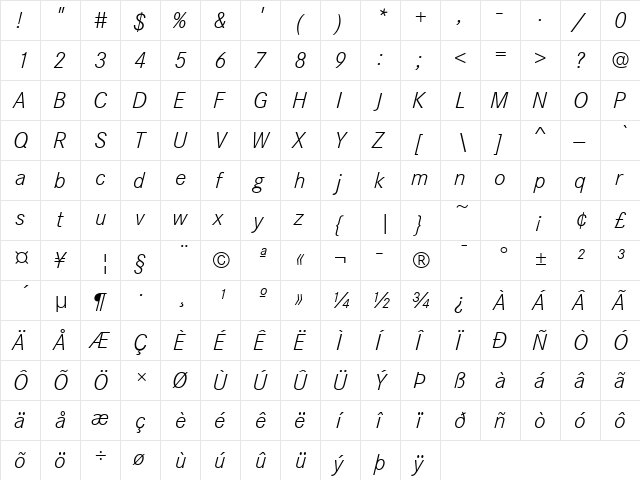
CorpoSLig Italic
Design Context for CorpoSLig Typeface
CorpoSLig offers clean, dependable letterforms without strong stylistic allegiance, making it a practical choice for designers who need flexibility. The dynamic lean of this cut emphasises speed and emphasis in any layout.
Pro Tip: Try CorpoSLig for annotation and caption copy alongside an upright companion — the contrast in angle creates a dynamic but ordered typographic system.